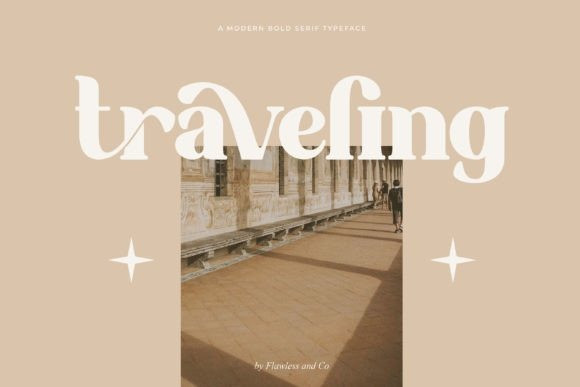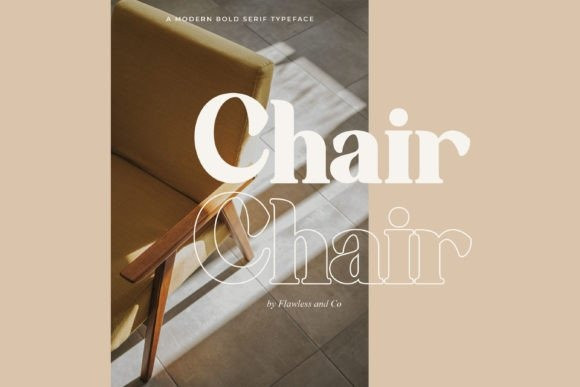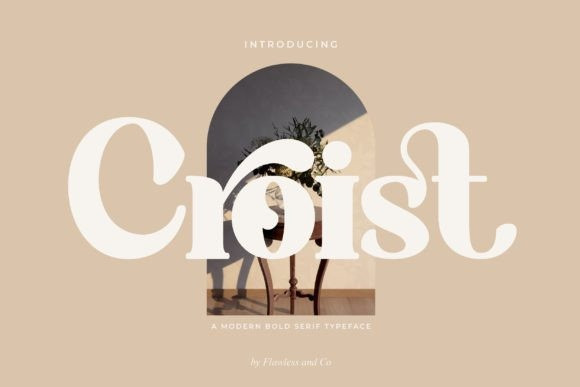
Croist Font
Croist Font is a stylish, retro-style serif font. This font is neatly crafted and highly detailed. Whatever the topic, this font will be a wonderful asset to your font library, as it has the potential to enhance any creation.